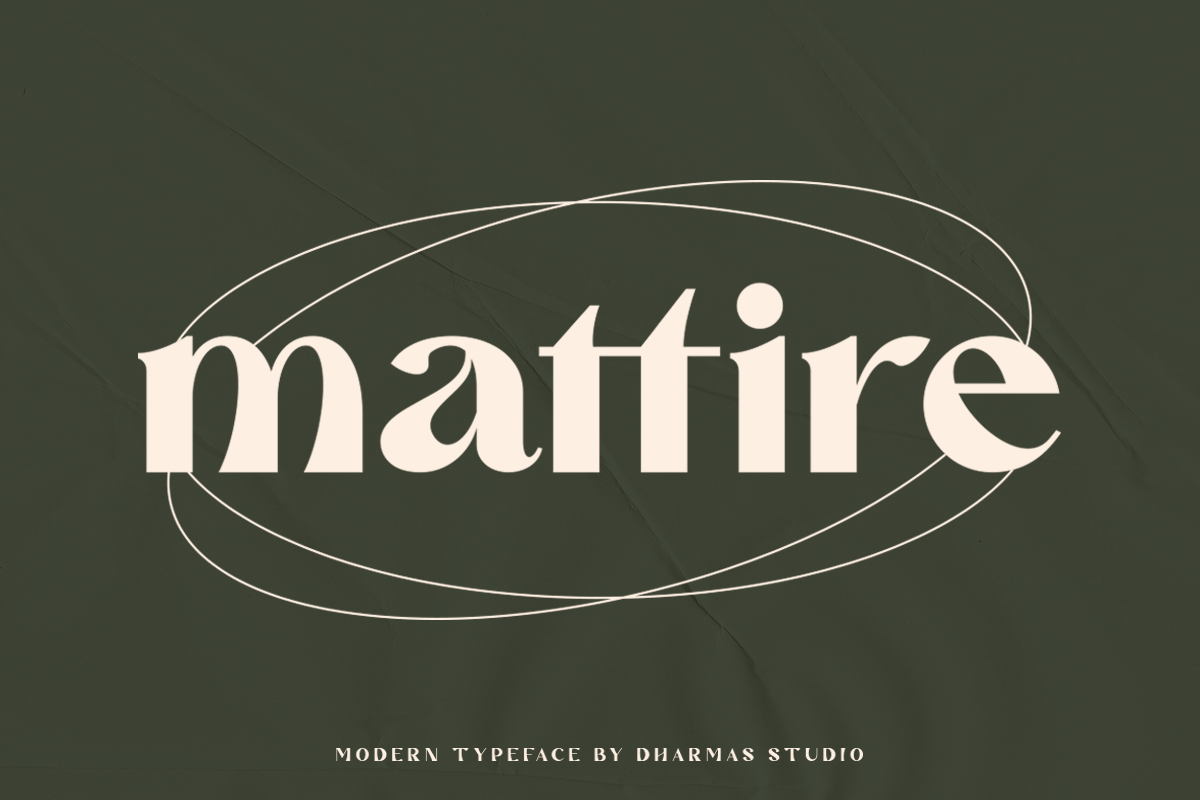
Mattire - Modern Serif Typeface Free Download
Mattire - Modern Serif Typeface Free Download is a sleek and fashion-forward serif font that combines timeless elegance with a contemporary edge. Featuring high-contrast strokes, sharp serifs, and refined curves, Mattire is perfect for luxury branding, editorial design, packaging, logos, wedding invitations, and social media graphics.
Its stylish letterforms are designed to stand out, making it ideal for headlines and display use, while still offering strong legibility for more detailed text. Mattire brings a touch of sophistication and professionalism to any project with minimal effort.